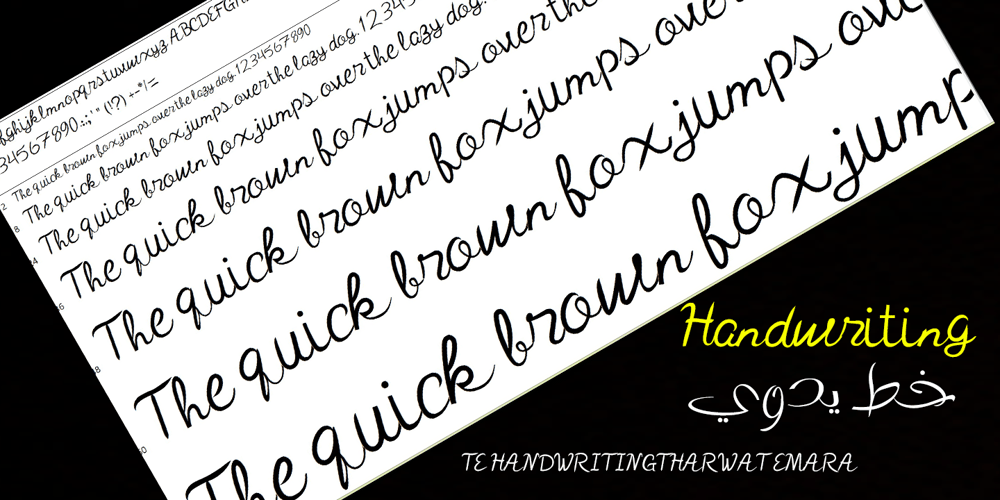
TE Handwriting Tharwat Emara
TE Handwriting Tharwat Emara font
TE Handwriting Tharwat Emara Font Family was designed by Tharwat Mohamed Emara and published by Tharwat Emara. TE Handwriting Tharwat Emara contains 1 styles and family package options. TE Handwriting Tharwat EmaraThe TE Handwriting Tharwat Emara font is a captivating and expressive typeface designed by the renowned Egyptian calligrapher Tharwat Emara. This font seamlessly blends traditional Arabic calligraphy with a contemporary twist, resulting in a harmonious balance between heritage and modernity.Key Features: Fluid Curves and Swirls: The strokes of this font flow gracefully, mimicking the natural movement of a skilled calligrapher’s hand. Each curve and swirl is meticulously crafted, evoking a sense of elegance and authenticity. Variety of Ligatures: TE Handwriting Tharwat Emara includes an extensive set of ligatures, connecting letters seamlessly to create a harmonious visual rhythm. These ligatures enhance readability and add a touch of sophistication. Dynamic Letterforms: The font’s letterforms exhibit dynamic variations in thickness, emphasizing the calligraphic brushwork. Bold strokes contrast with delicate hairlines, creating a visually engaging texture. Intricate Diacritics: Diacritical marks (such as dots and accents) are meticulously placed, ensuring clarity and precision. These diacritics play a crucial role in Arabic script, indicating vowel sounds and nuances. Versatility: TE Handwriting Tharwat Emara is versatile, suitable for various design contexts. Whether used in headlines, branding, or editorial layouts, it exudes a timeless charm. Inspirations and Influences: Tharwat Emara draws inspiration from classical Arabic calligraphy styles, particularly the Naskh and Ruqaa scripts. His deep understanding of historical forms informs the design of this font. The fluidity of the font reflects Emara’s reverence for the rich calligraphic heritage of Egypt and the broader Arab world. Usage Recommendations: Editorial Design: Use this font for book covers, magazine layouts, and editorial spreads. Its legibility and artistic flair make it an excellent choice for long-form text. Branding and Logos: The unique personality of TE Handwriting Tharwat Emara can elevate brand identities. Consider using it for luxury brands, cultural institutions, or creative agencies. Invitations and Stationery: Weddings, events, and formal invitations benefit from the font’s elegance. Pair it with complementary typefaces for a cohesive desi In summary, TE Handwriting Tharwat Emara is a captivating fusion of tradition and innovation—a testament to Tharwat Emara’s mastery of Arabic calligraphy. Its expressive forms and timeless appeal make it a valuable addition to any designer’s toolkit. 🖋️✨